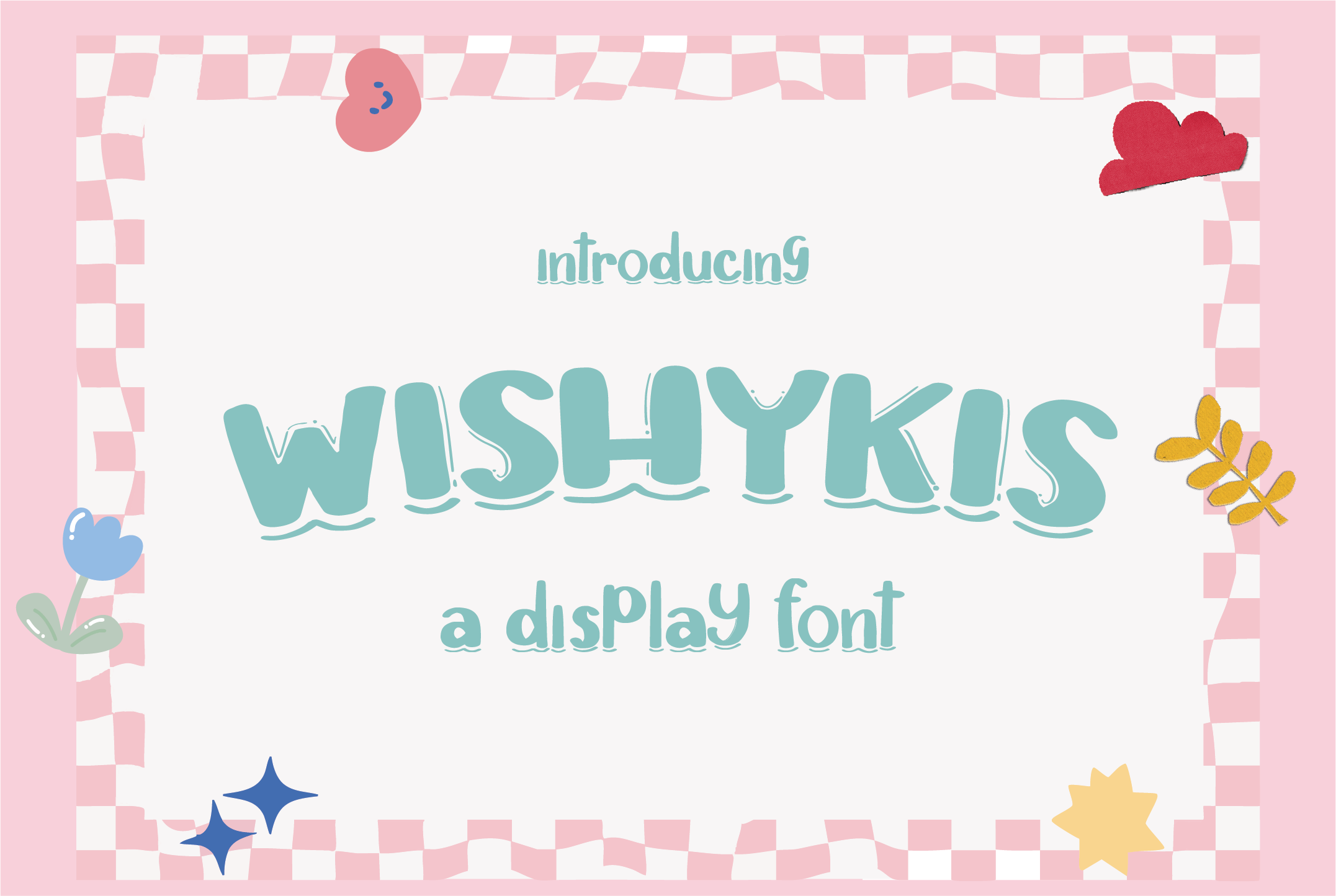
Wishykis - Display Font
Wishykis The font in this design is bubbly, playful, and fun. The letters are rounded with a slightly squishy feel, as if they are filled with air or softness. The wavy lines at the bottom of the letters add a sense of movement and fluidity, making it feel lighthearted and dynamic. The pastel blue color further emphasizes the soft, relaxed vibe, giving it a cheerful and refreshing appearance.